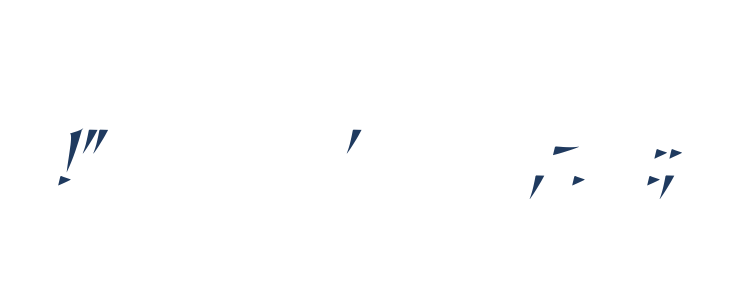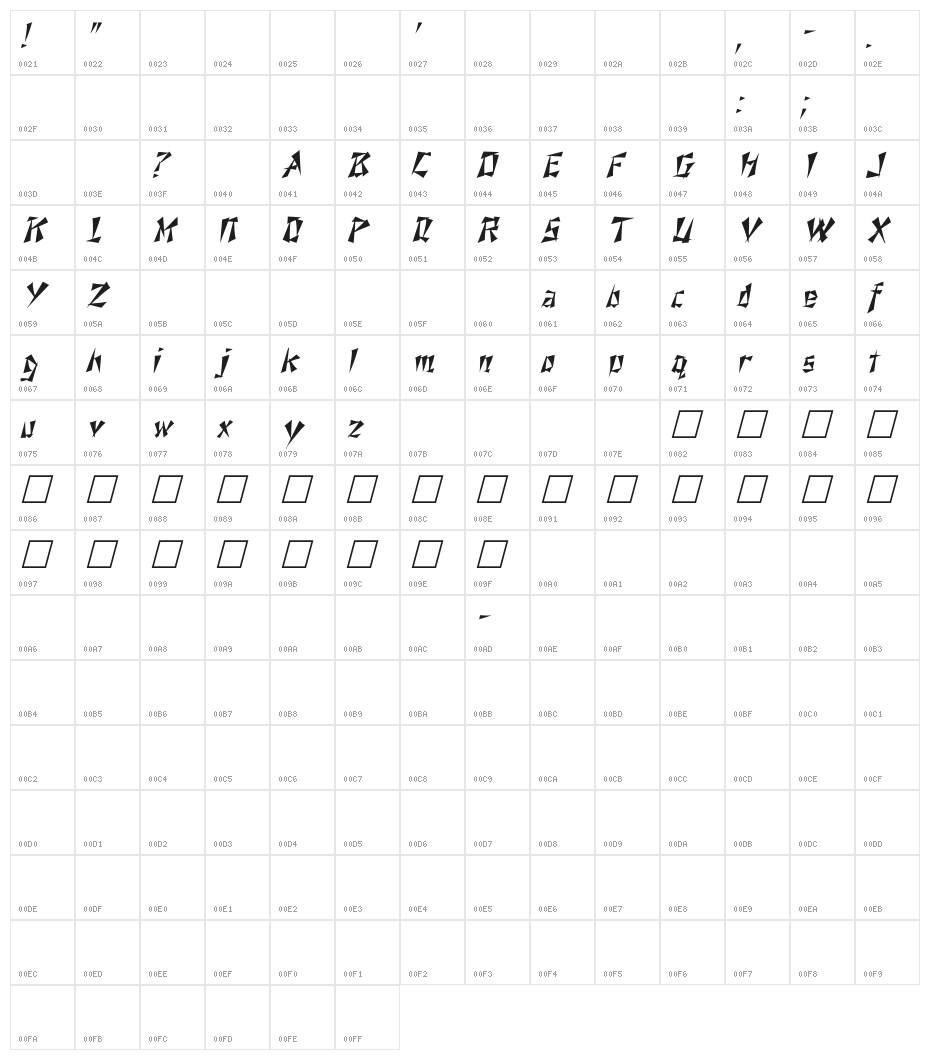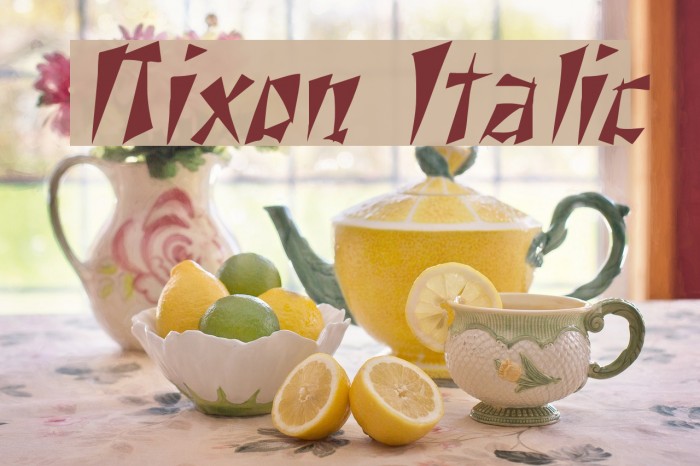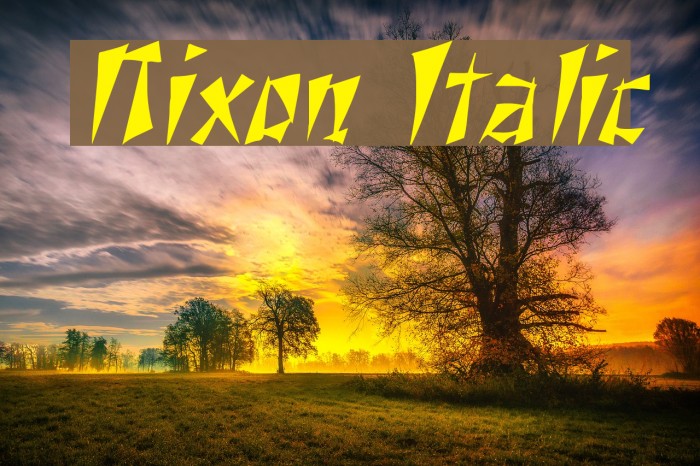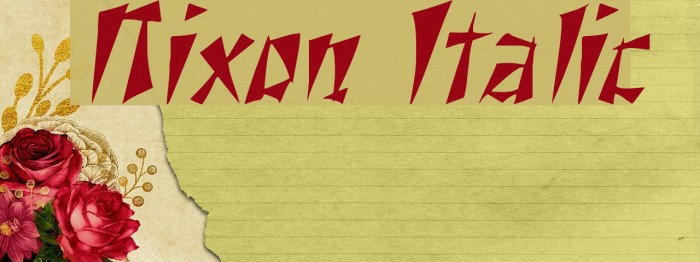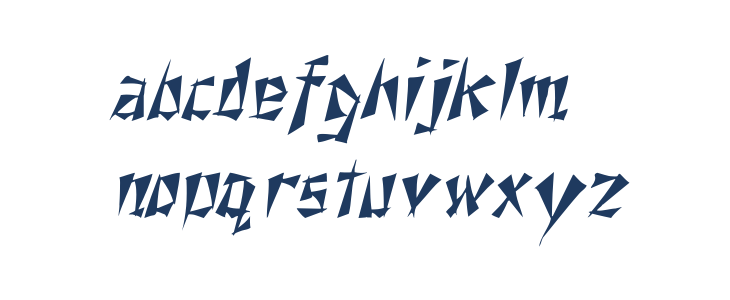
Nixon Italic Font
Nixon Italic Description
This font features a bold and dynamic design with sharp, angular lines that create a sense of movement and energy. The characters are heavily stylized, with exaggerated serifs and a unique slant that gives them a distinct italic appearance. The uppercase and lowercase letters maintain a consistent style, with the uppercase being slightly more pronounced. The numbers and special characters follow the same design principles, ensuring a cohesive look across all text. This font's striking appearance makes it ideal for attention-grabbing headlines and creative projects.